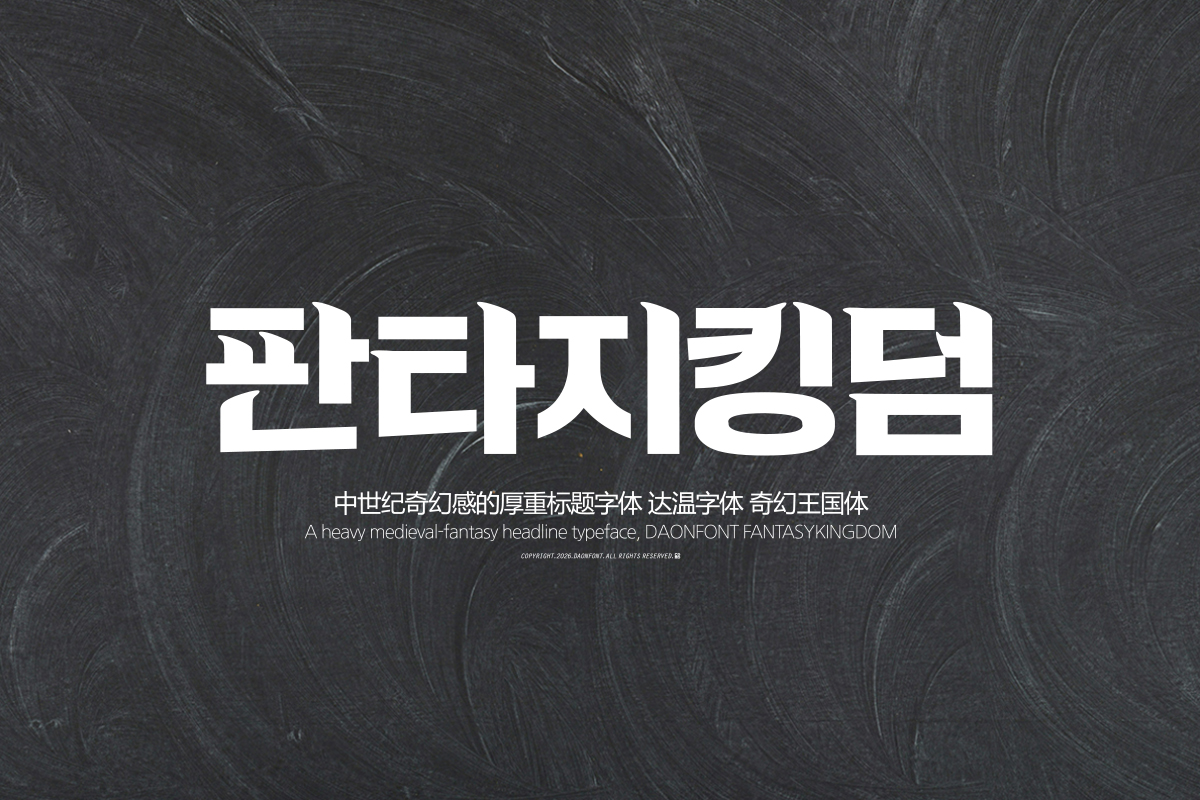
DAON PANTAJIKINGDEOM
Combining the unrivaled intensity of serif typefaces with the stability of square shapes, 'PANTAJIKINGDEOM' is a typeface that combines a refined design with an overwhelming presence created by classic serifs and solid columns. It is perfectly suited for novels, webtoons, and game titles, as well as for bold titles and copy designs.